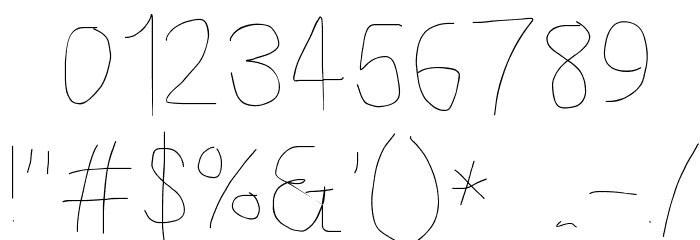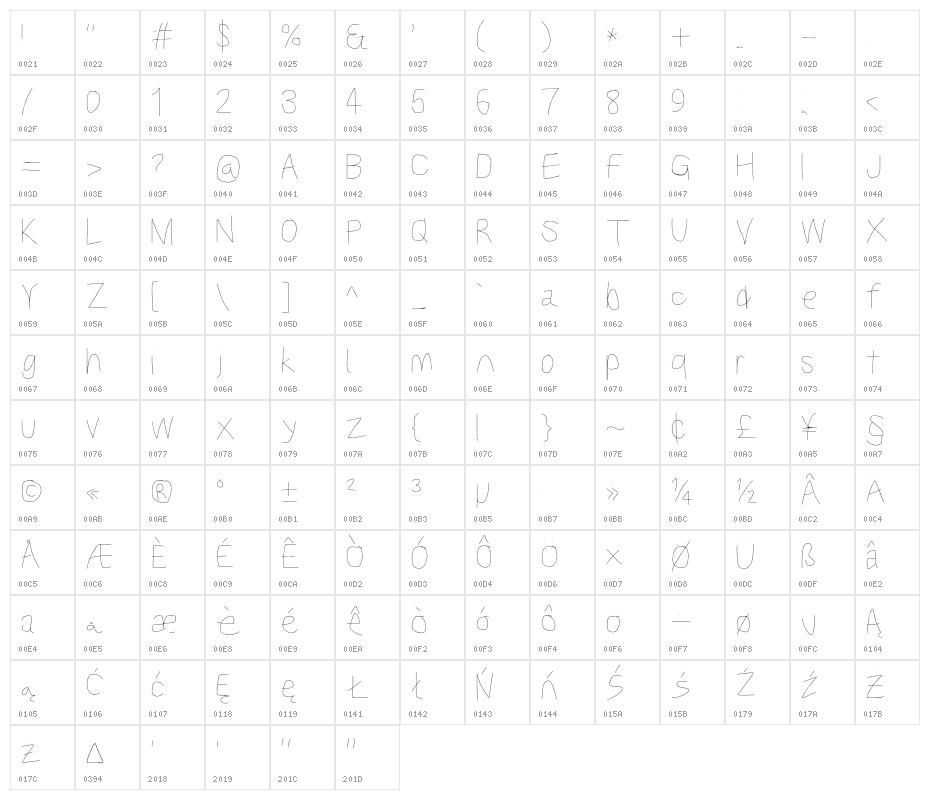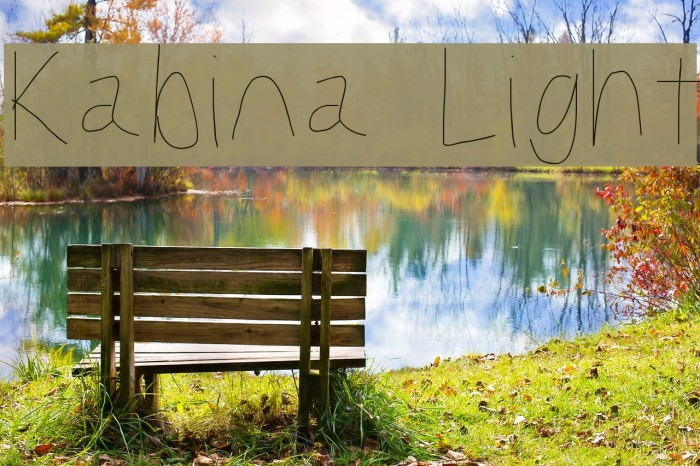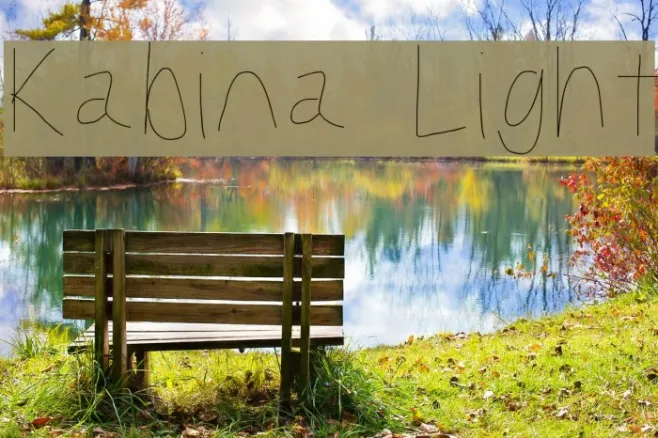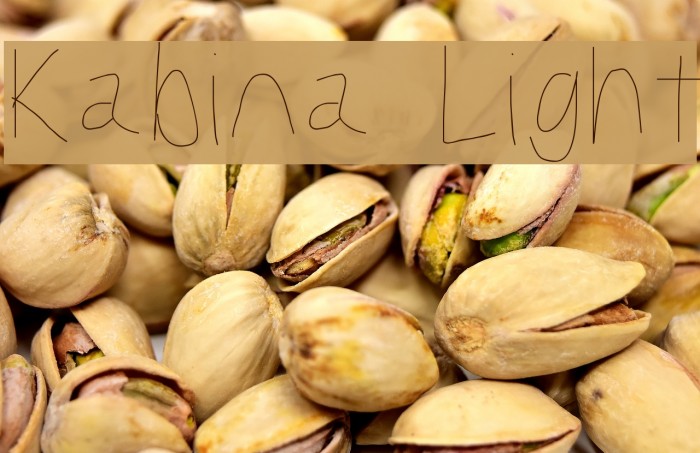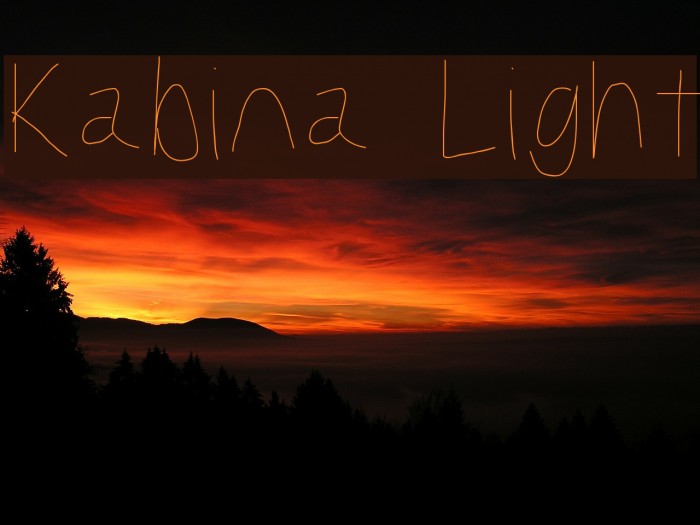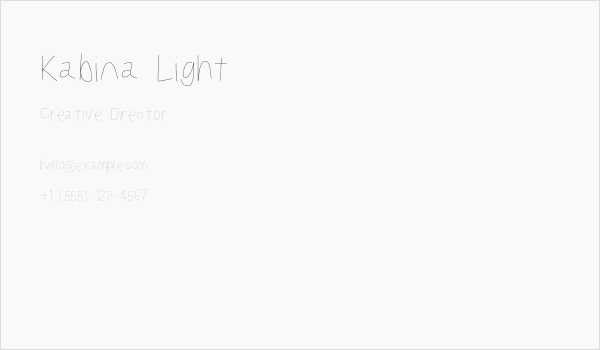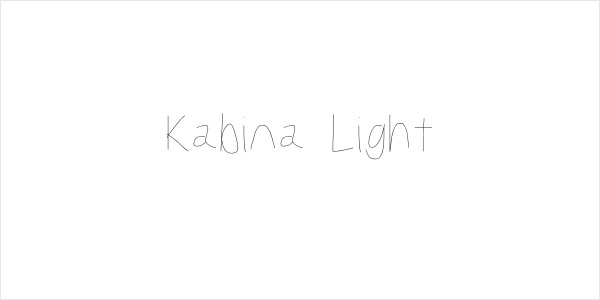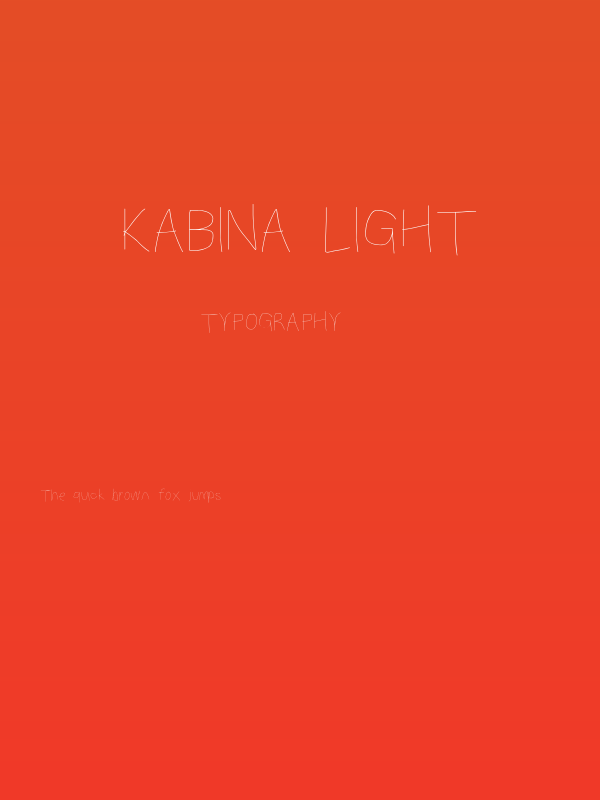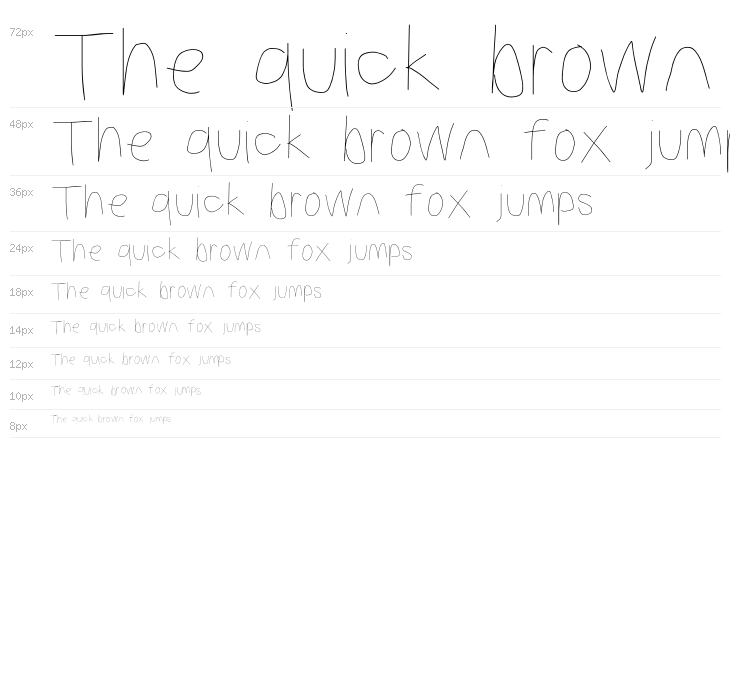
Kabina Light Font
Kabina Light Description
This font features a light, airy style with thin strokes that give it a delicate and modern appearance. The characters are evenly spaced, maintaining a clean and uncluttered look. Its simplicity and elegance make it suitable for a variety of design projects. The uppercase letters are tall and narrow, while the lowercase letters maintain a consistent height, contributing to its uniformity. The numerals are clear and straightforward, ensuring readability. Special characters are designed with the same thin strokes, maintaining the overall aesthetic of the font.
| Proposed Projects | Ideal for minimalist designs, modern branding, elegant invitations, and digital content where a light touch is desired. |